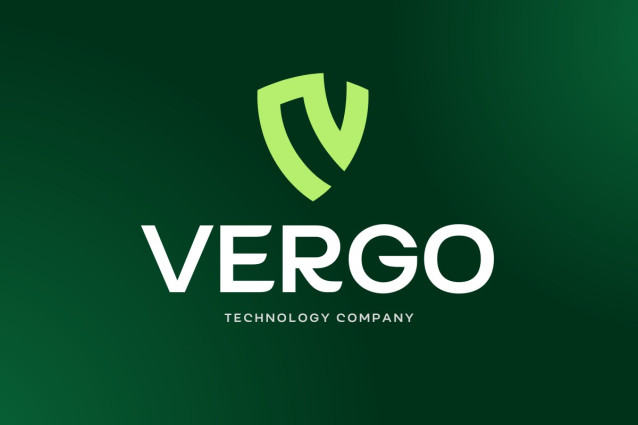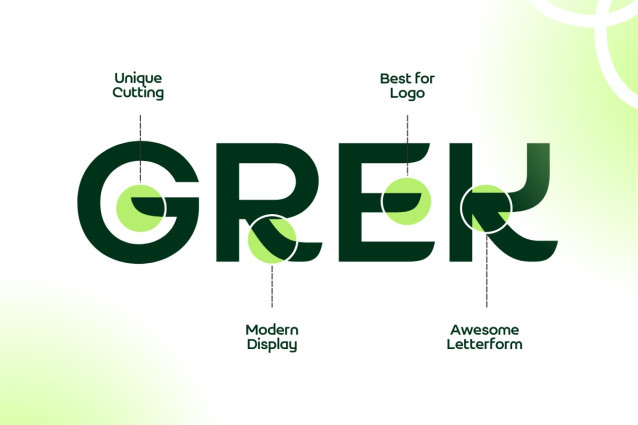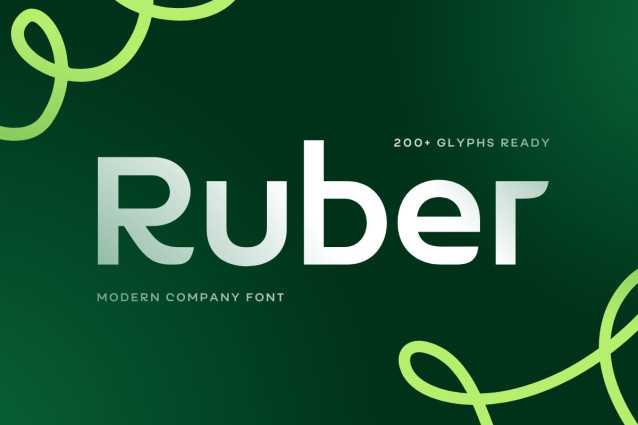
Ruber Font
Ruber Font is a sleek, modern sans-serif typeface designed to elevate your company’s branding, logotype, and overall visual identity. With its subtly rounded edges and confident, geometric structure, Ruber strikes the perfect balance between professional polish and contemporary flair.